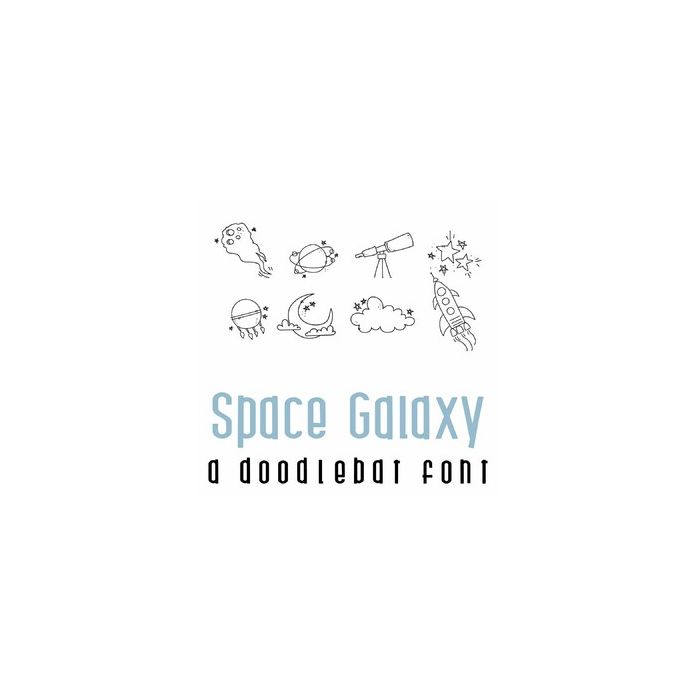
Space Galaxy Doodlebat Font
This fun doodlebat font features 26 doodle style space images. Perfect for cards, crafts, gifts, decor, scrap book pages, planner stickers and more!